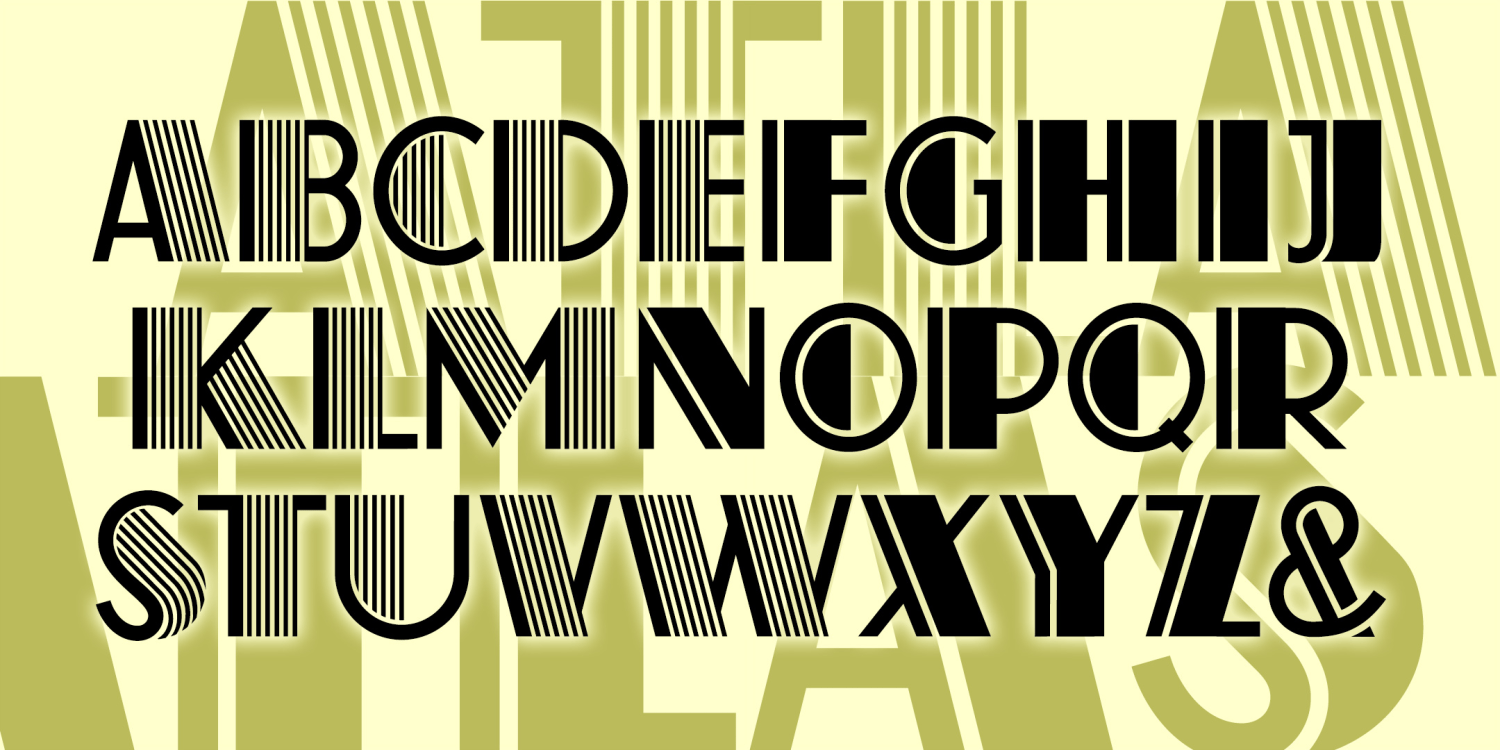
Atlas
About Atlas
ATLAS captures the bold glamour of the Art Deco period. Inspired by a classic analog font, ATLAS comes in two varieties: original with dazzling pinstripes and solid with just the one. Since originally creating these in 2001 under the name Farouk as I'd…